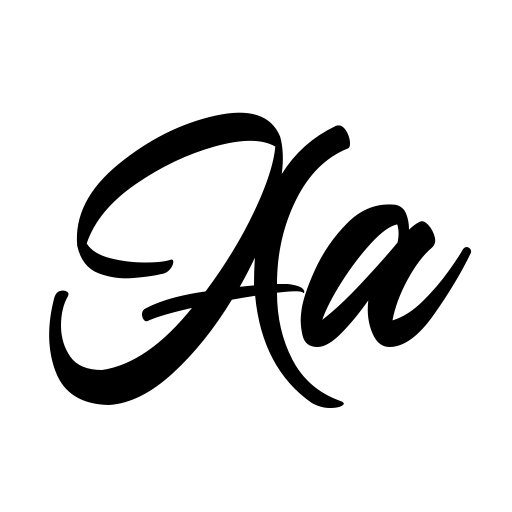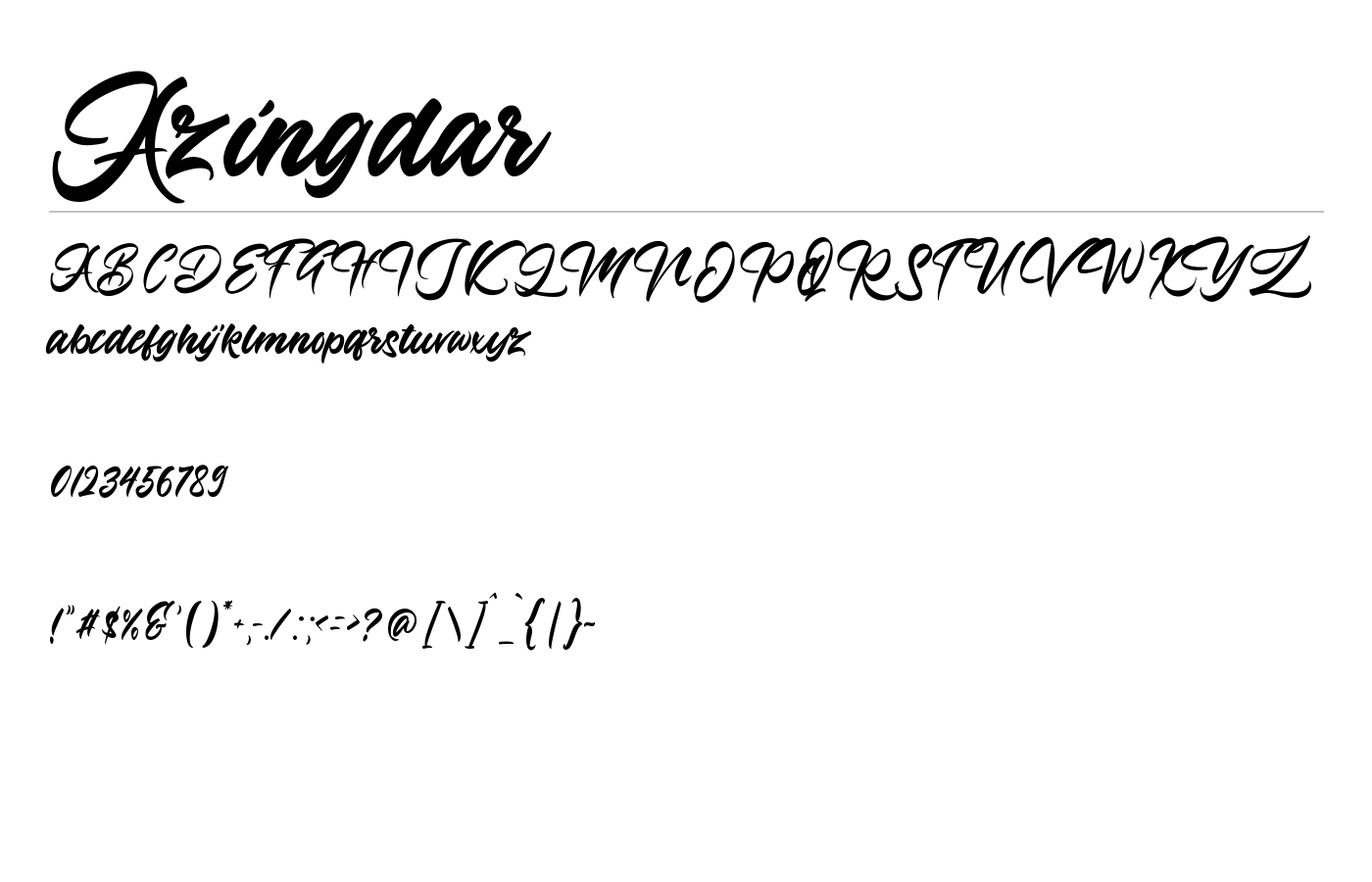
Azingdar is a stylish script font with a flowing, handwritten feel, characterized by its bold strokes and elegant curves. Its moderate contrast and smooth, connected letterforms give it a dynamic and personal touch, making it perfect for branding, invitations, and headlines that require a sophisticated yet approachable look. This font works best in designs that aim to convey creativity and warmth while maintaining a polished and refined appearance.
Azingdar Font
About Azingdar Font